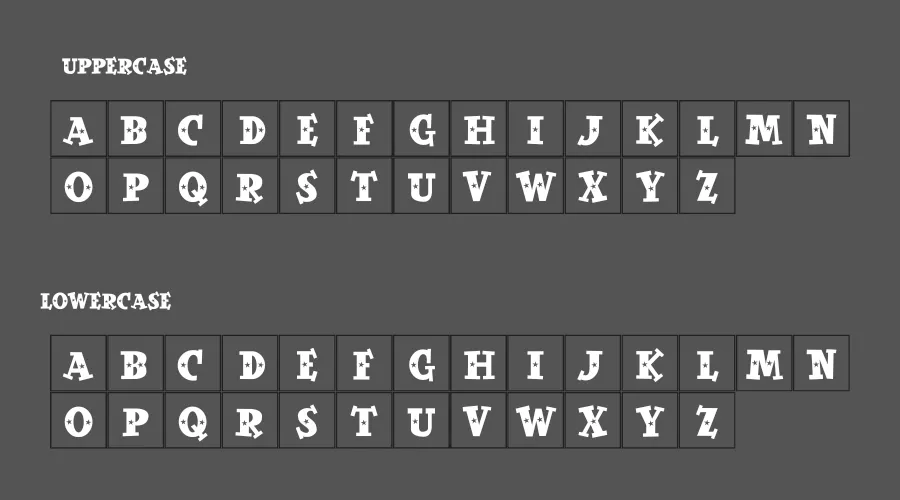
About Space Out Font
Space Out Font is designed by Gaut Fonts it is a cartoon typeface. With this wonderful typeface, users can create stunning graphic designs for their websites as well.
Many additional characters are included in the design of this typeface that can be available using OpenType capabilities in programs like Photoshop and illustrator, Adobe Photoshop, and Word Documents.
The typeface has a lot of adaptability because of its alternate characters, which play a major role to create amazing designs for all kinds of projects.
This text style comprises a variety of features and attributes that will look amazing in your content. Try the best pairing with Baskerville Font and Garamond Font if you’re searching for a more attractive typeface that looks similar to the Space Out Font.
It is one of the best-looking fonts available in the text style world. Text style can be used for trademarks, headers, and layout design, it makes a superior choice.
While using this amazing typeface you can create a stunning YouTube thumbnail that will attract the attention of the viewer. This typeface can meet all the user’s needs and deliver them a quality content.
A typeface that has different characters such as capital letters, caps, and exclamation. It is one of the most beautiful free modern text designs because of its each letter which are properly placed within a square area, giving the spaces between every letter a different and reliable look.
By using this typeface users can make amazing designs in their private and official content, it can be used in animated movies logo, comic magazine layouts, cushion designs, Action movie titles and much more.
Name | Space Out Font |
Designer | Gaut Fonts |
Style | Cartoon |
Is Space Out a decent font?
Yes, the typeface is an excellent one. For headlines, billboards, and other visuals, it is a fantastic option.
Why is the Space Out typeface so widely used?
The popularity of this typeface is due to a number of factors. There are several movies and tv programs that employ The Font.